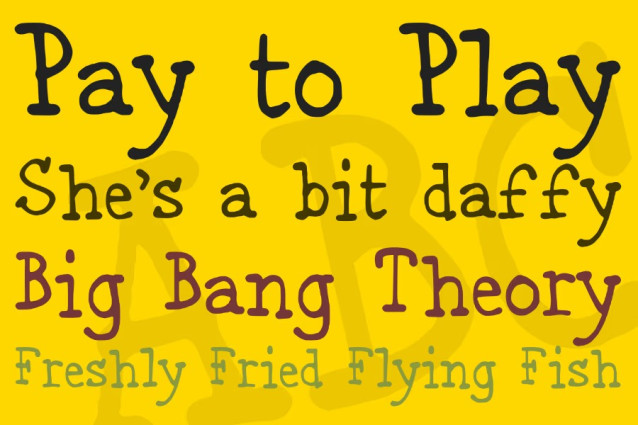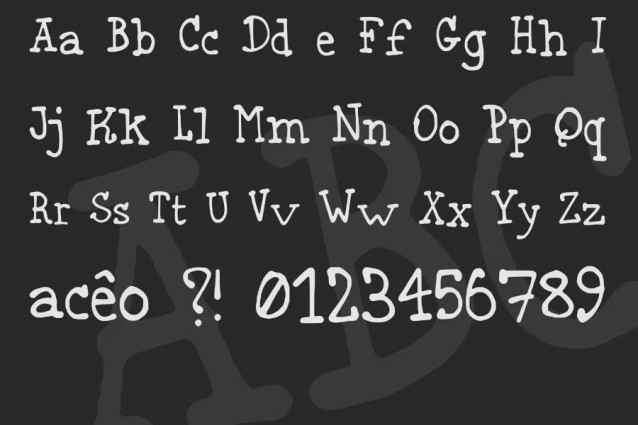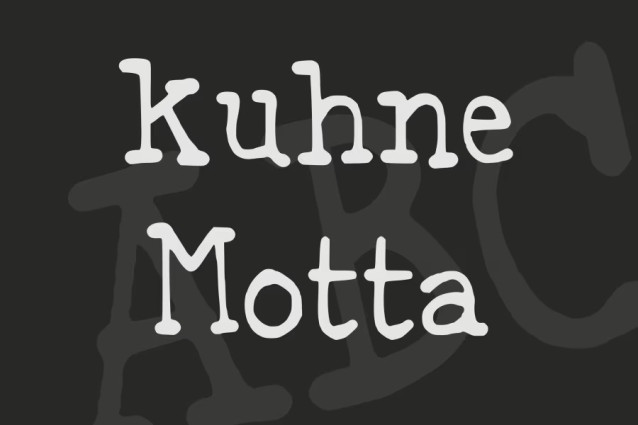
Kuhne Motta Font is a simple and modern display font suitable for quotes, logos, headings, titles, and many more. Use it on any of your creative projects, and your designs will become outstanding!